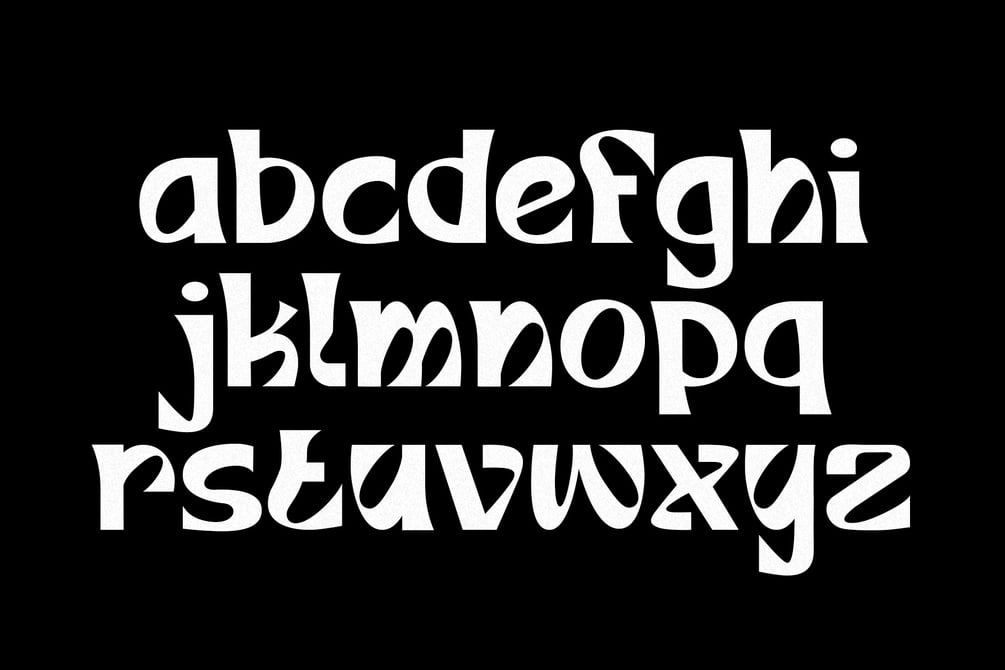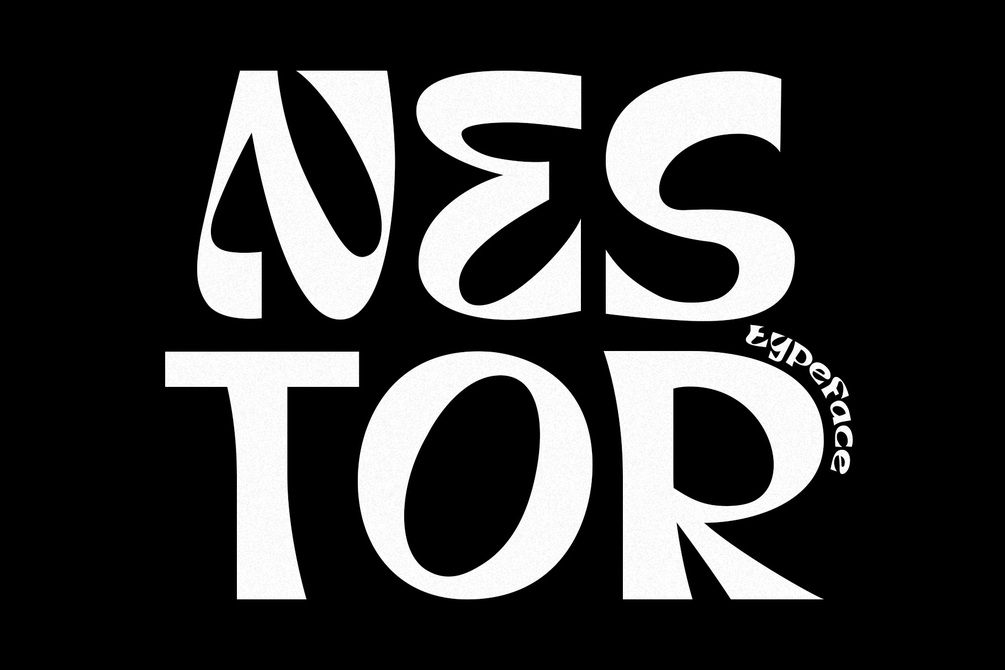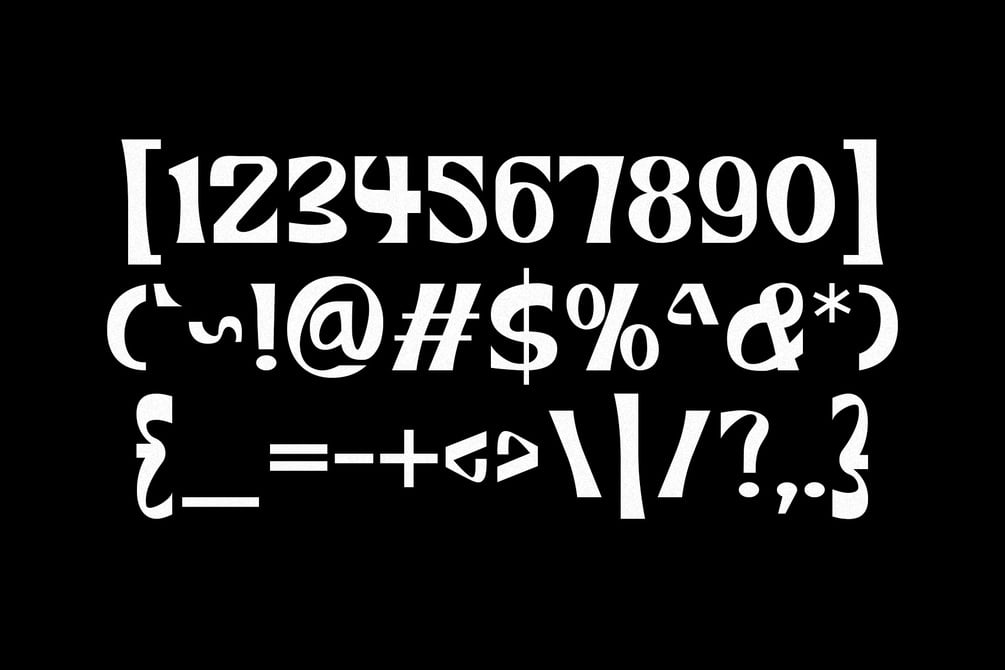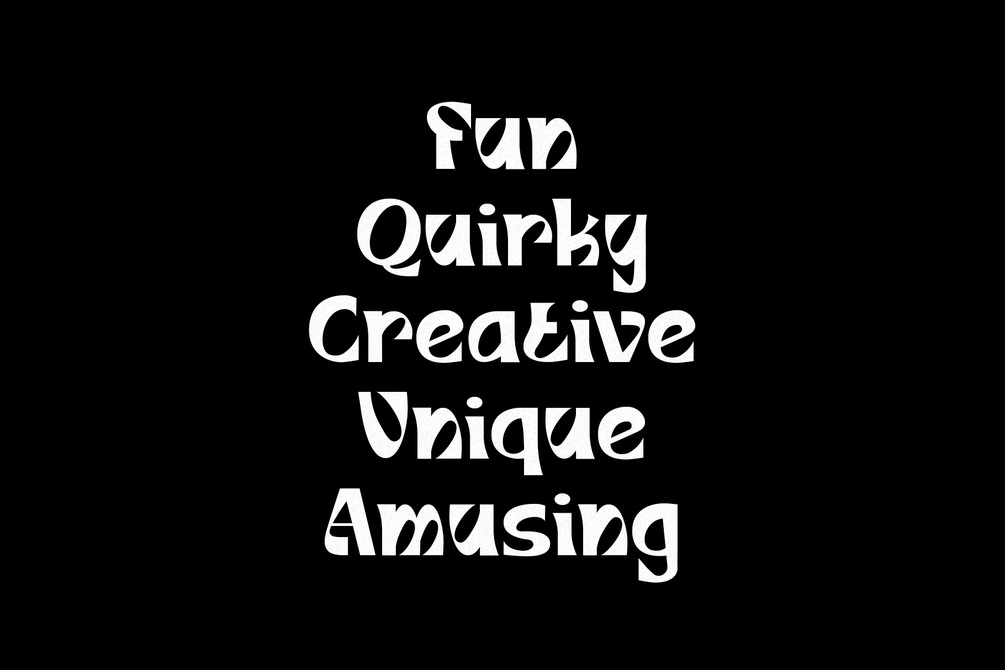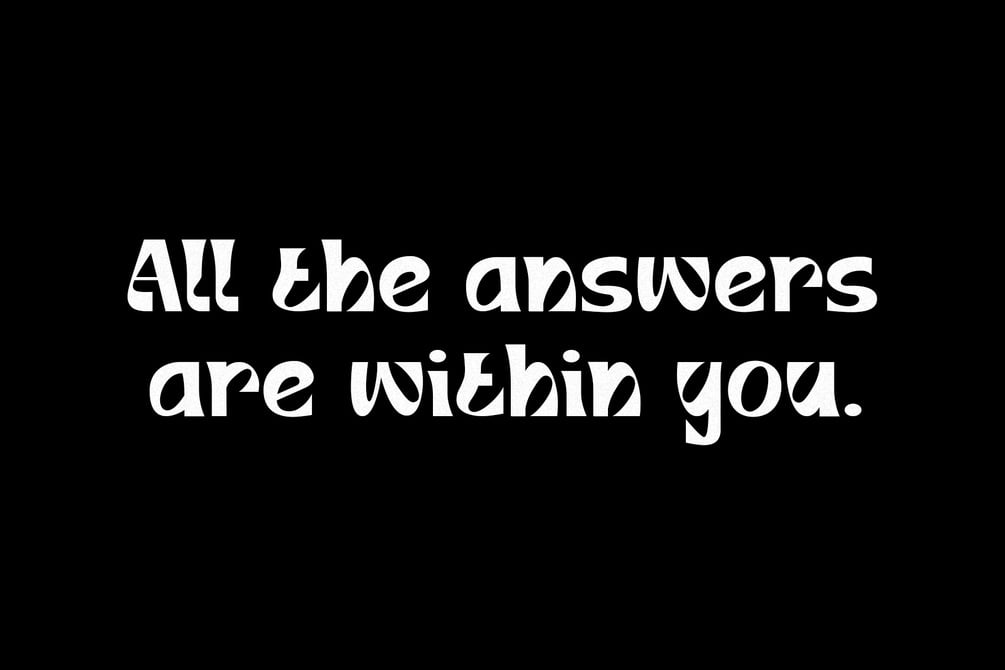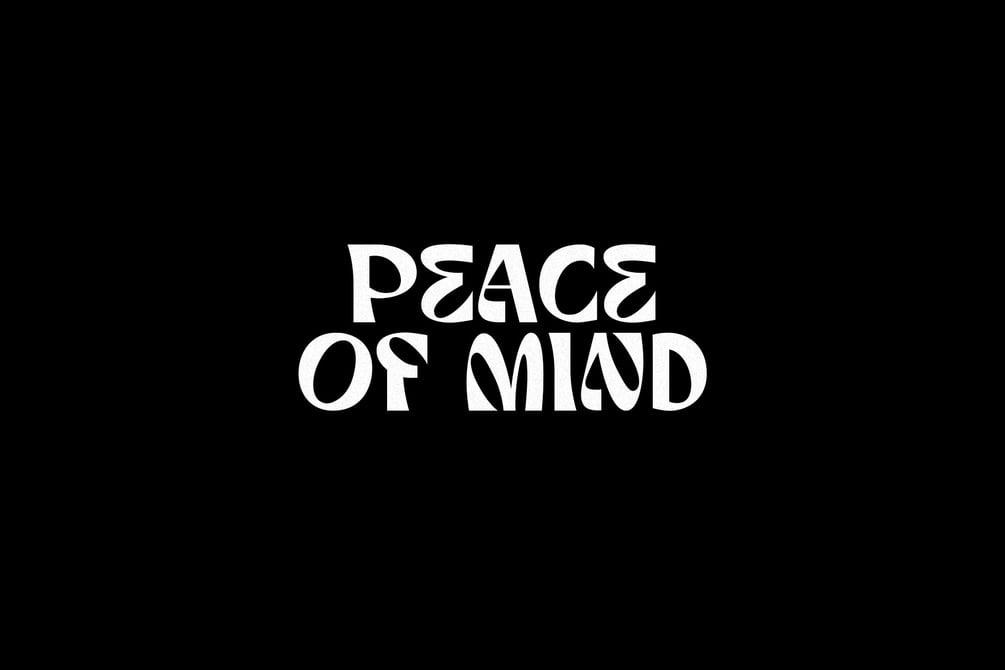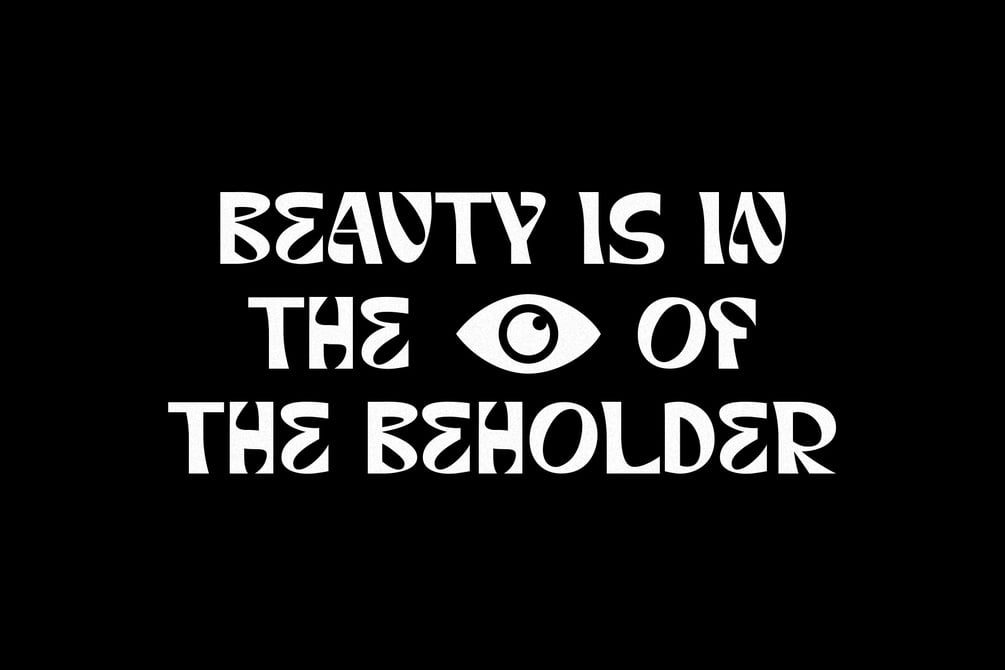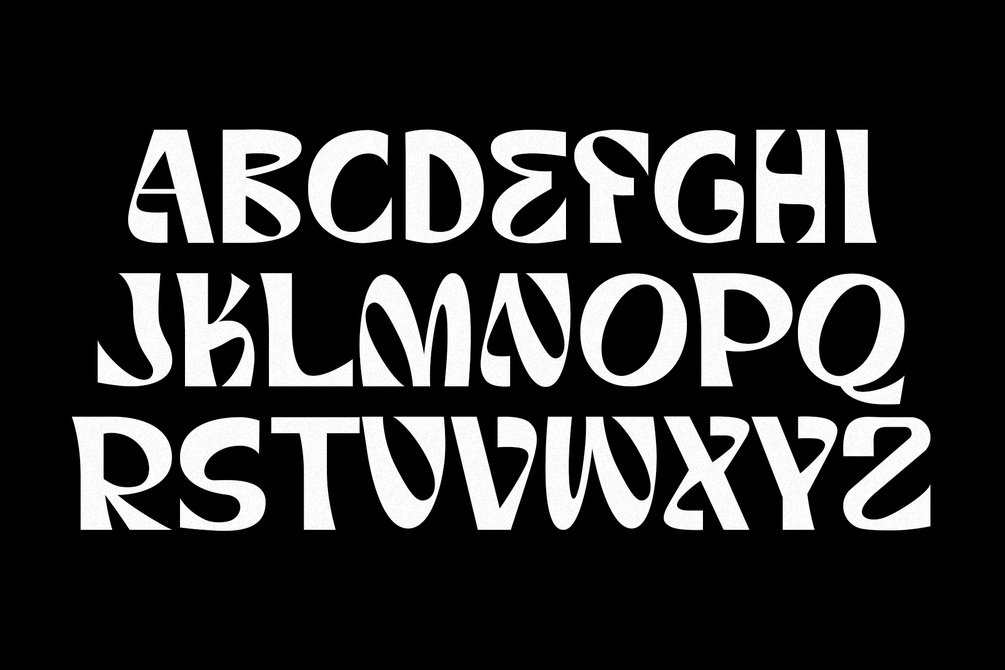
Nestor - Quirky Typeface
Nestor is a retro inspired display typeface that's unique, lovable, and quirky. It's perfect for headlines, advertising, posters, branding, social media, quotes, prints, and much more. If you're in need of a typeface that has groovy curves with a bold personality, then Nestor is for you.